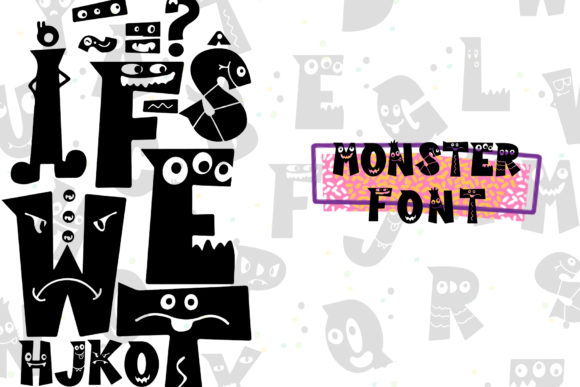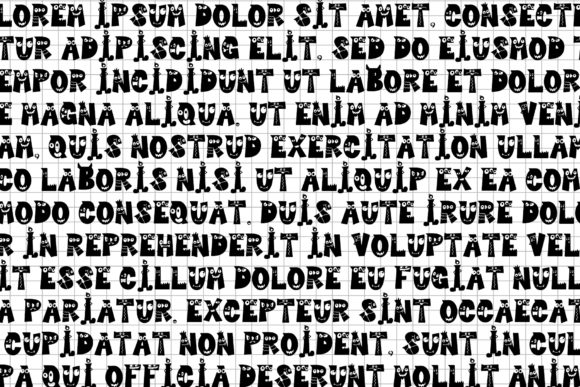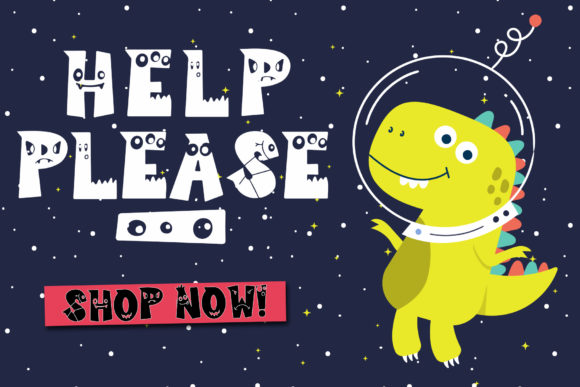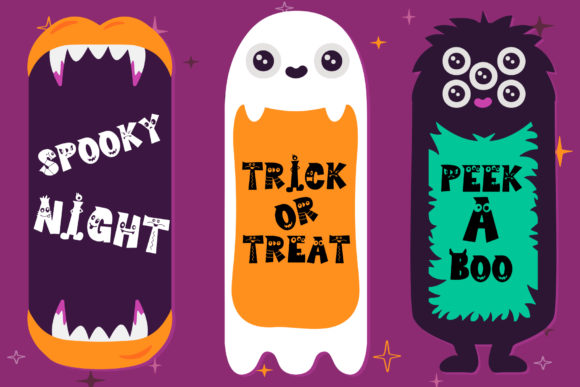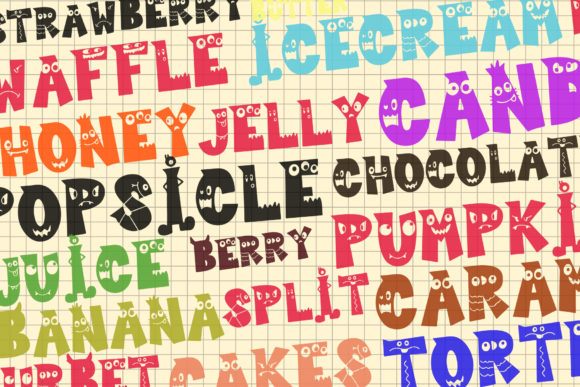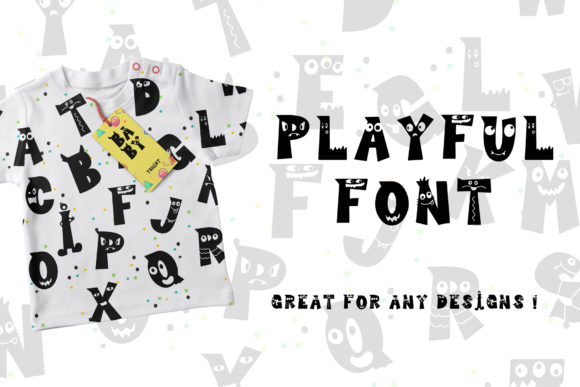
Unleash Your Creativity with Cutie Monster Font: The Ultimate Display Font
Are you tired of using the same old fonts in your designs? Look no further! Introducing Cutie Monster Font, a cool and fun display font that’s sure to add a unique vibe to your projects. With its bold style, Cutie Monster is the perfect choice for designers and crafters looking to make a statement.
What is Cutie Monster Font?
Cutie Monster Font is a display font designed to grab attention and make a lasting impression. Its unique and playful style is perfect for creating eye-catching headlines, titles, and logos. The font’s bold and chunky texture gives it a fun and edgy feel, making it ideal for designs that require a bit of personality.
Key Features of Cutie Monster Font
- Unique and Playful Style: Cutie Monster Font boasts a one-of-a-kind design that’s sure to stand out from the crowd.
- Bold and Chunky Texture: The font’s bold texture gives it a fun and edgy feel, perfect for making a statement.
- High-Quality Design: Cutie Monster Font is designed with high-quality craftsmanship, ensuring that it looks great in any design.
Who is Cutie Monster Font for?
Cutie Monster Font is perfect for designers and crafters who want to add a touch of personality to their projects. Whether you’re designing a logo, creating a social media graphic, or crafting a DIY project, Cutie Monster Font is the perfect choice. Its bold style and unique vibe make it ideal for:
- Logos and Branding: Create a memorable logo that stands out from the competition.
- Social Media Graphics: Add a pop of personality to your social media graphics and posts.
- DIY Projects: Add a touch of fun and whimsy to your DIY projects, such as crafts, scrapbooking, and more.
- Advertising and Marketing: Create eye-catching ads and marketing materials that grab attention.
- Experiment with Different Sizes: Cutie Monster Font looks great in large and small sizes, so don’t be afraid to experiment.
- Pair with Other Fonts: Pair Cutie Monster Font with other fonts to create a unique and interesting contrast.
- Use in Combination with Images: Use Cutie Monster Font in combination with images to create a visually appealing design.
Cutie Monster Font is a cool and fun display font that’s sure to add a unique vibe to your designs. With its bold style and playful texture, it’s the perfect choice for designers and crafters looking to make a statement. Whether you’re designing a logo, creating a social media graphic, or crafting a DIY project, Cutie Monster Font is the perfect choice. So why wait? Download Cutie Monster Font today and unleash your creativity!
Get Inspired by Cutie Monster Font
Here are some inspiring examples of what you can create with Cutie Monster Font: